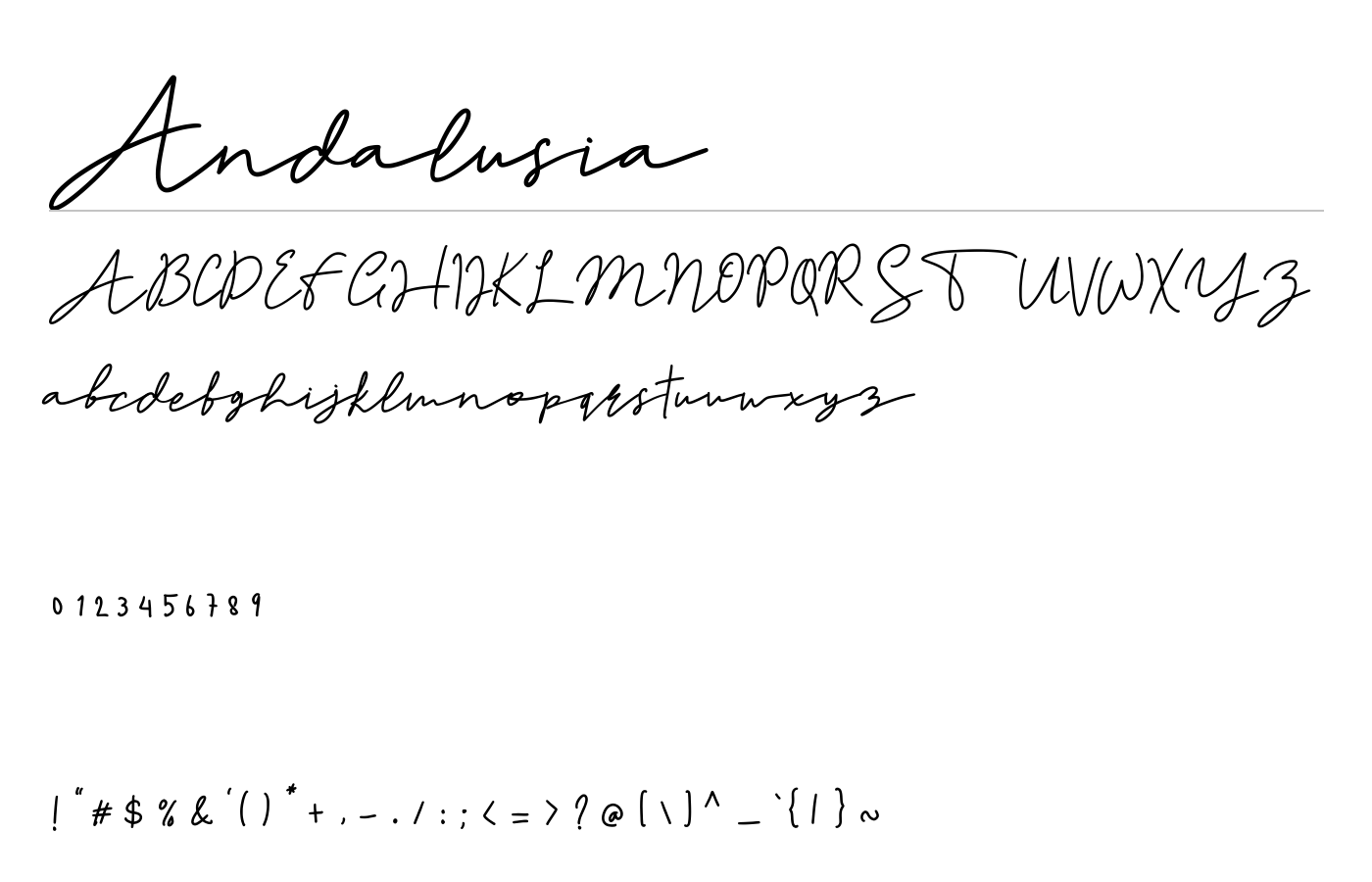
Andalusia is a delicate, handwritten script font characterized by its thin, flowing lines and airy, elegant feel. With a natural, casual style and a slight slant, it evokes a personal, approachable mood ideal for creative branding, invitations, and feminine designs. Its slender strokes and charming letterforms make it perfect for adding a touch of sophistication and warmth to logos, packaging, and editorial projects.
Andalusia Font
About Andalusia Font